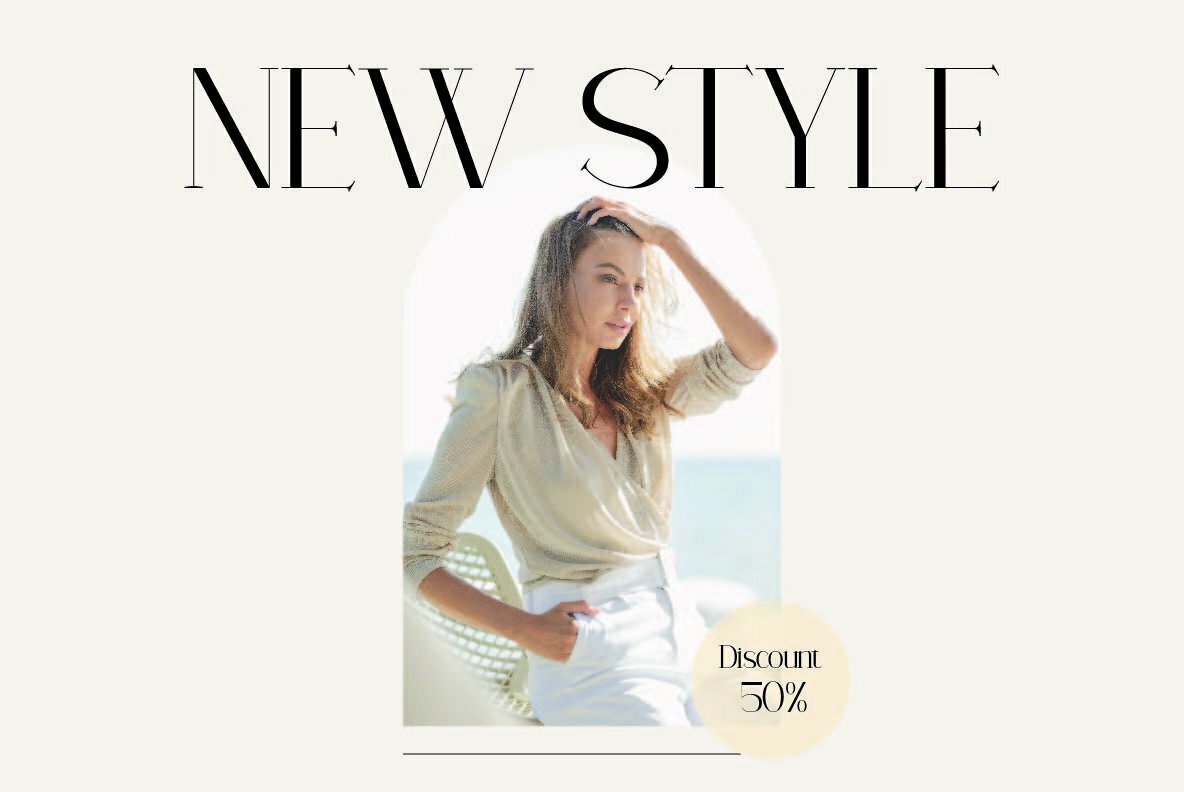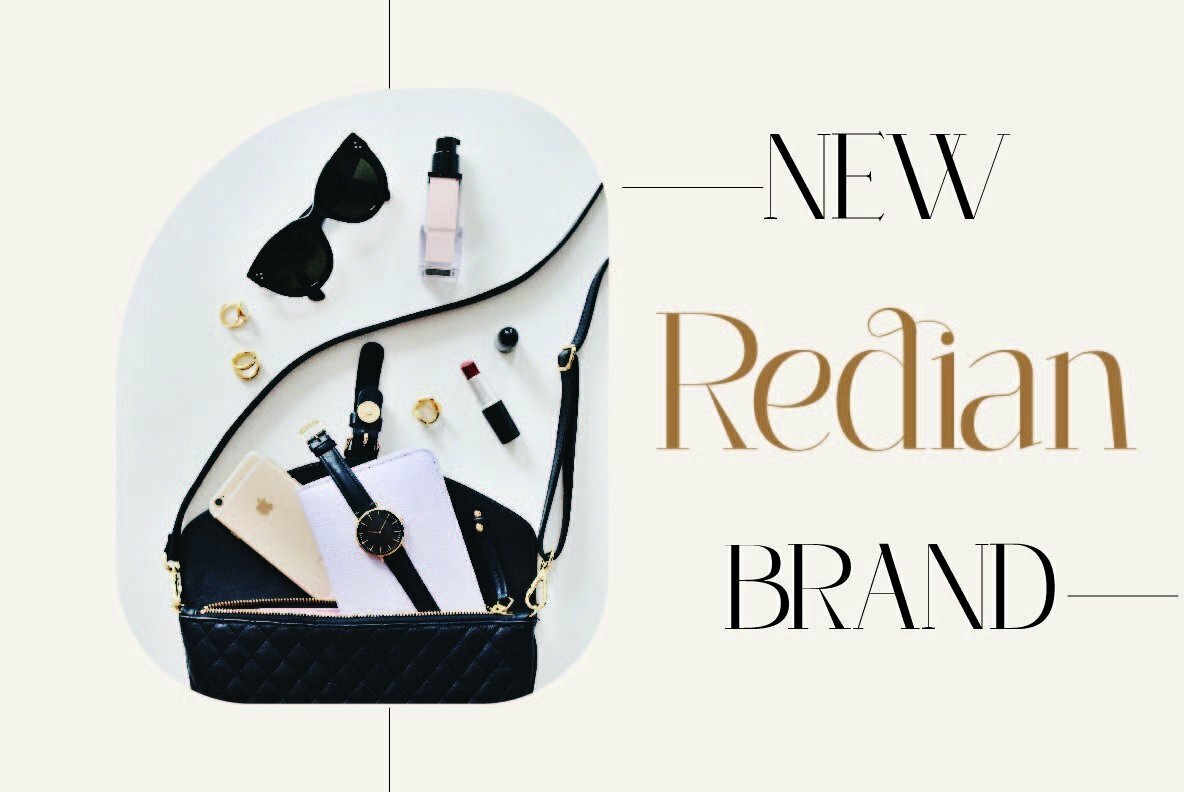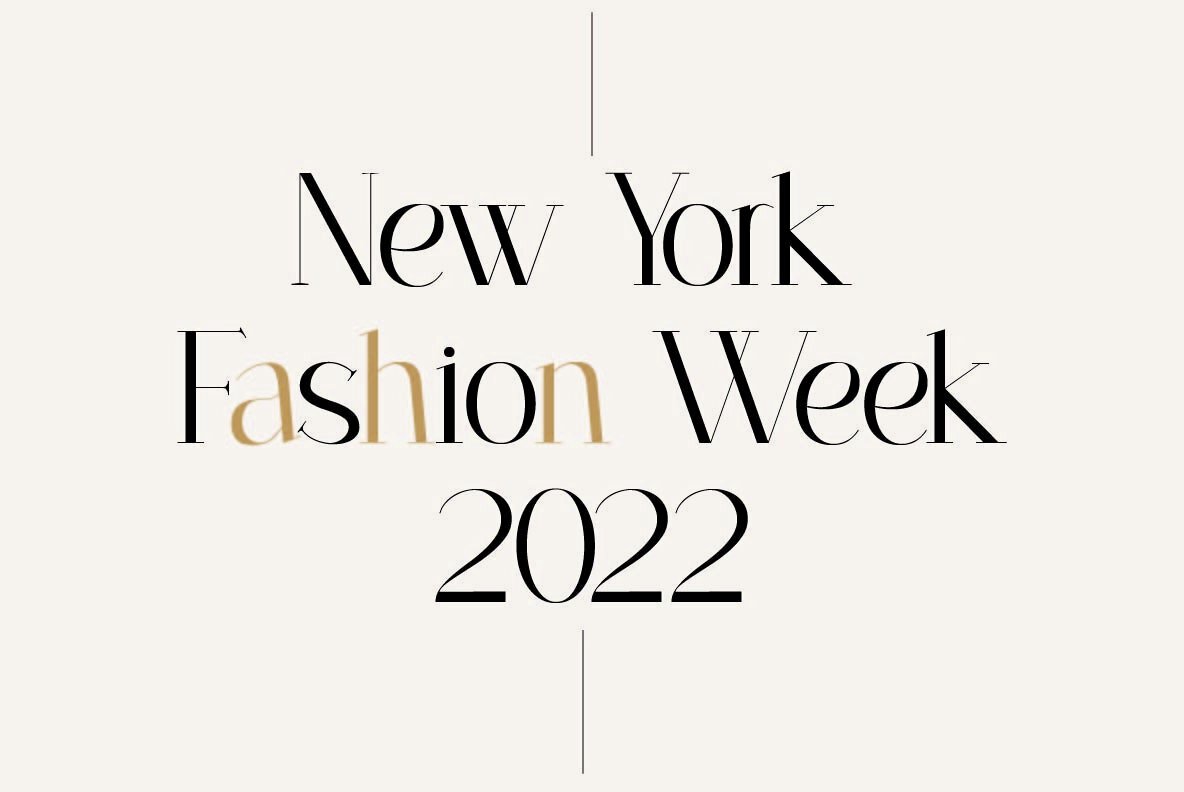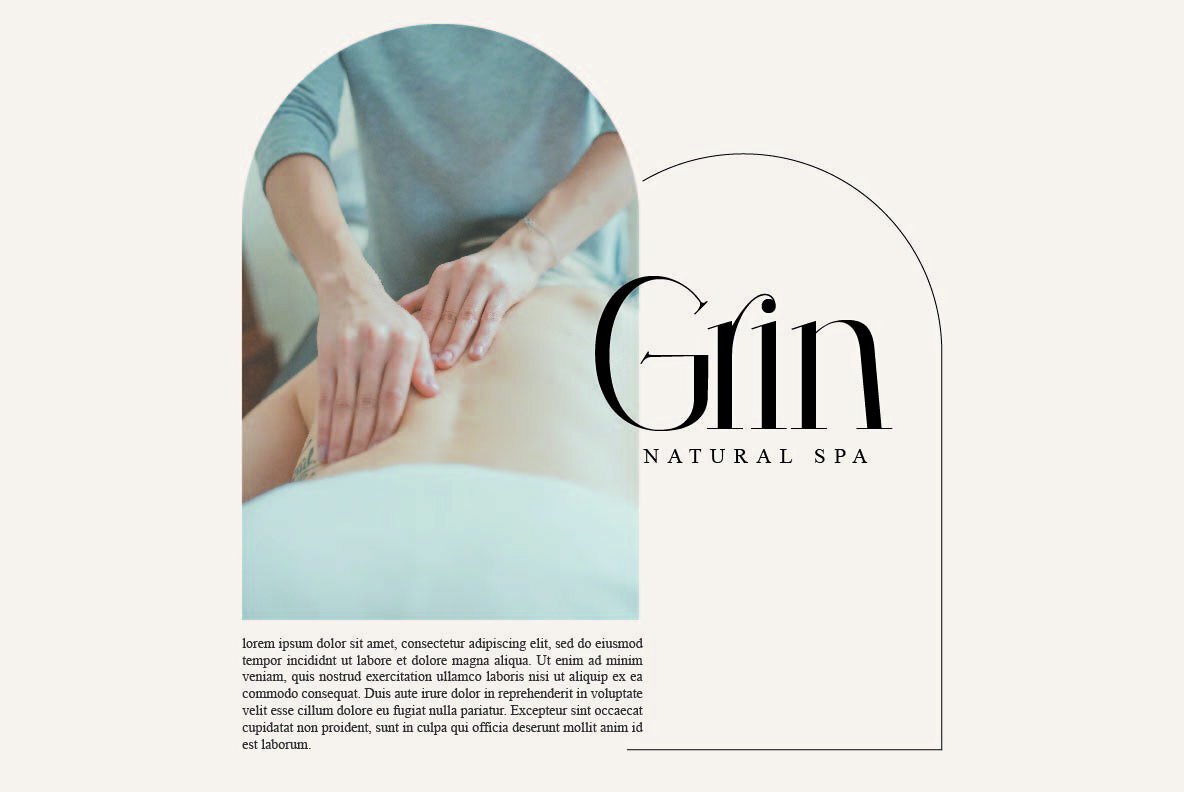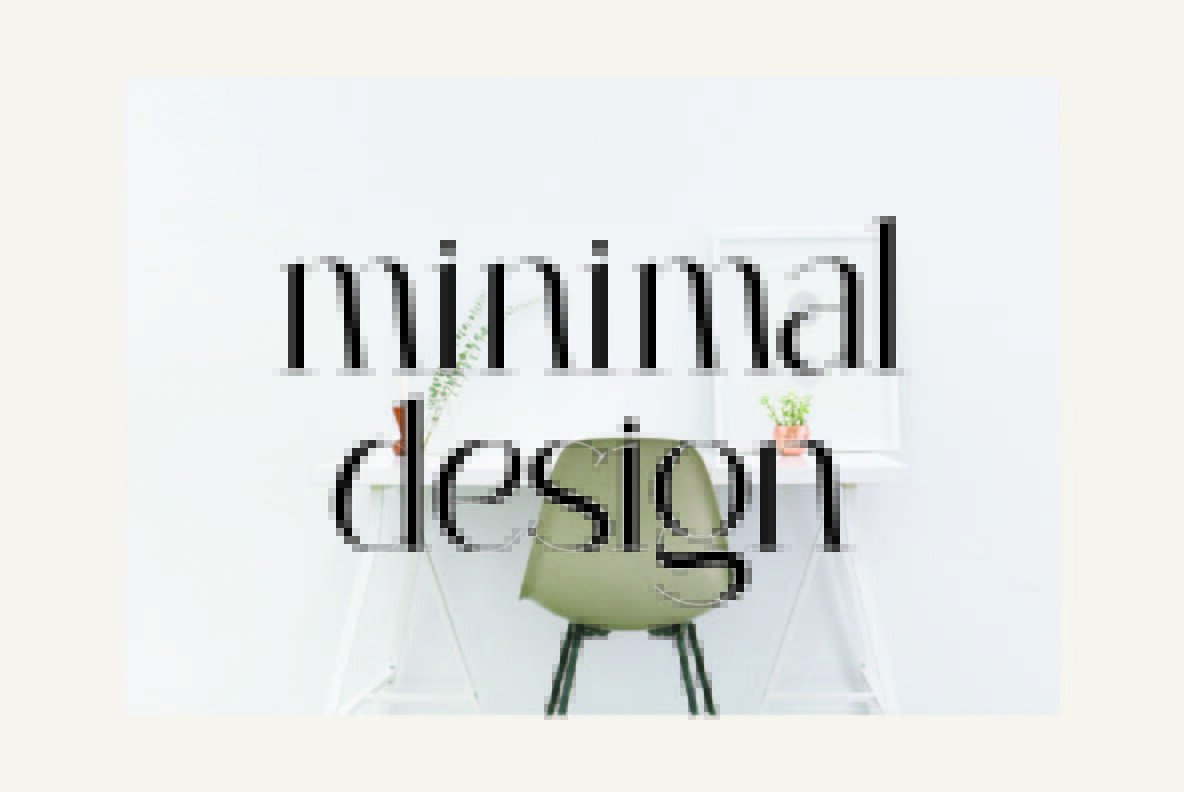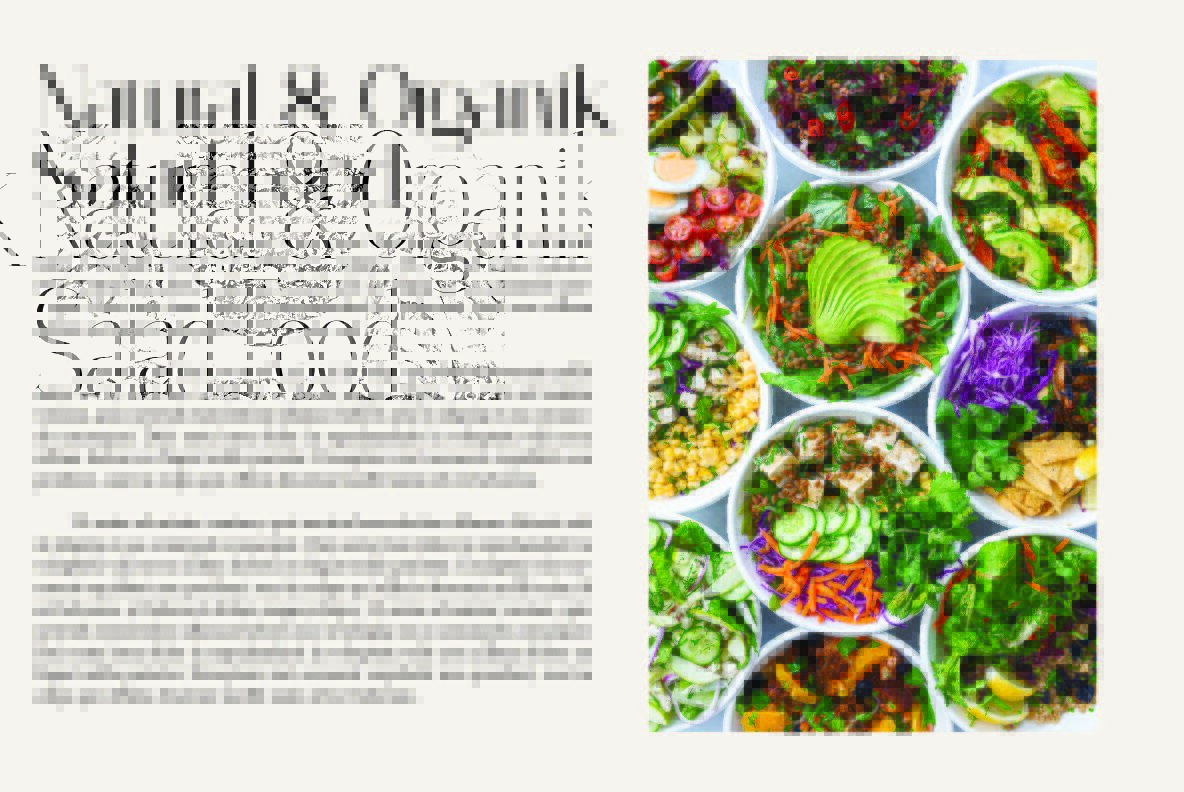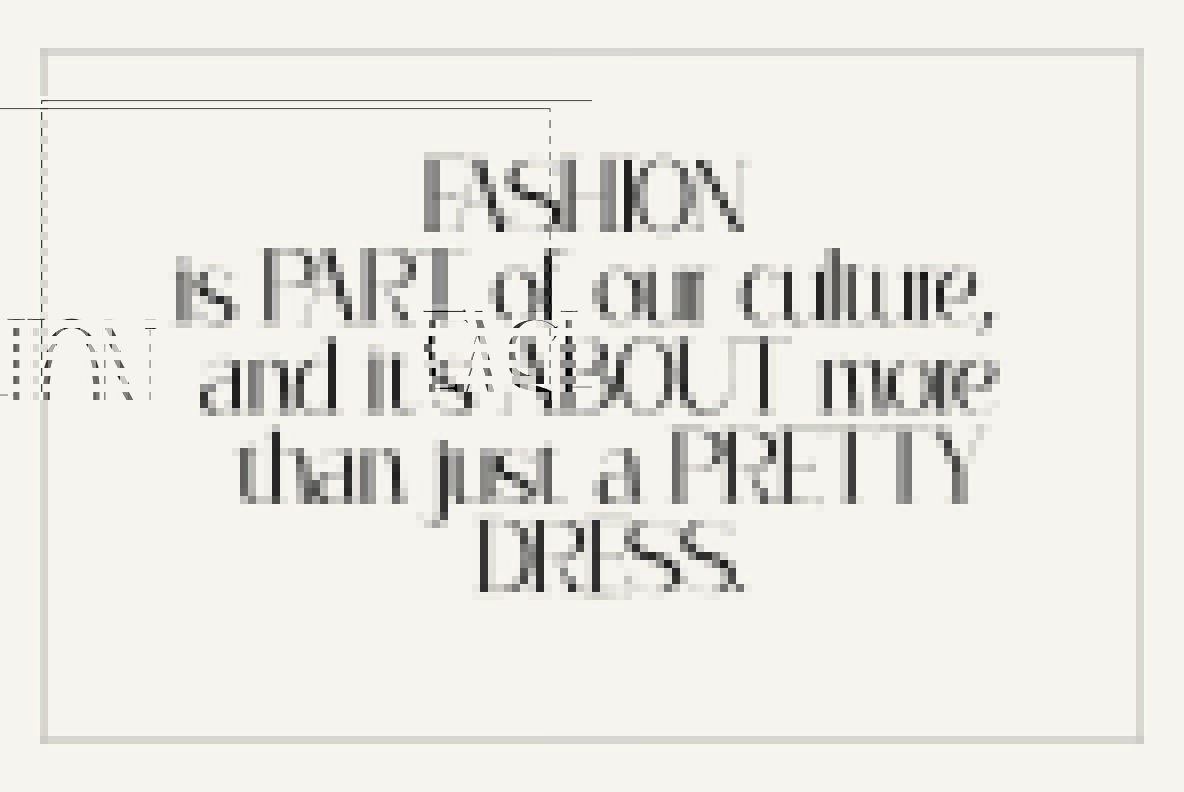
Camilen Font
Camilen Regular
Camilen is modern serif font that is perfect for use in any project where you want to add some extra flair. It's got great alternate characters, unique glyphs and multilingual support so it'll work no matter what kind of content or background images are being used!
- Lowercase and Uppercase
- Numerals & Punctuation
- Accented characters
- Multiple Languages Supported